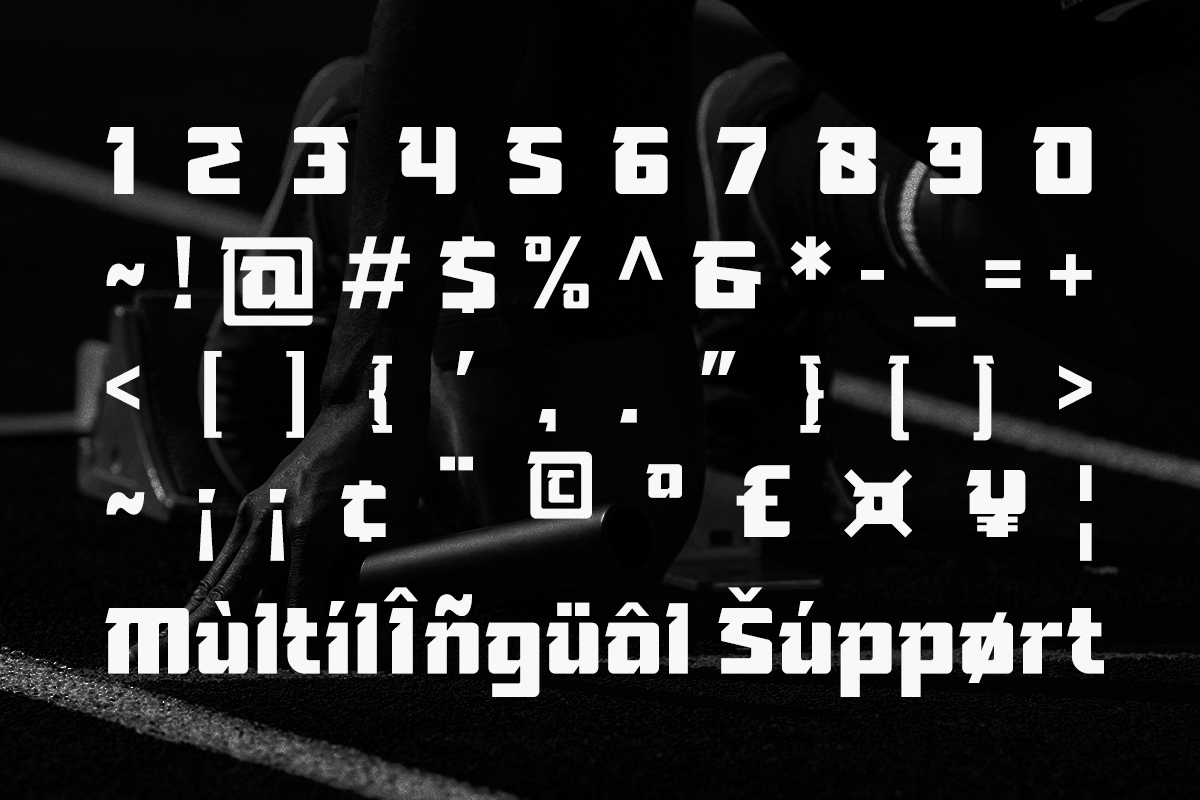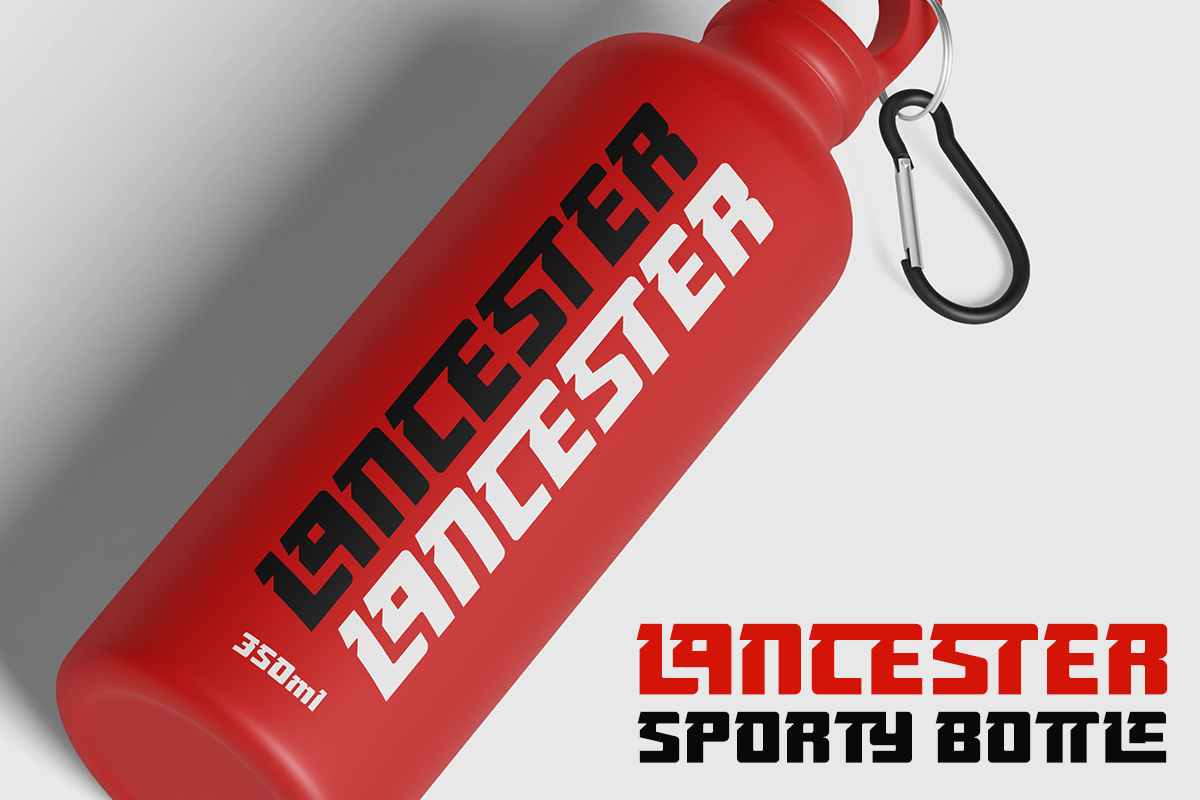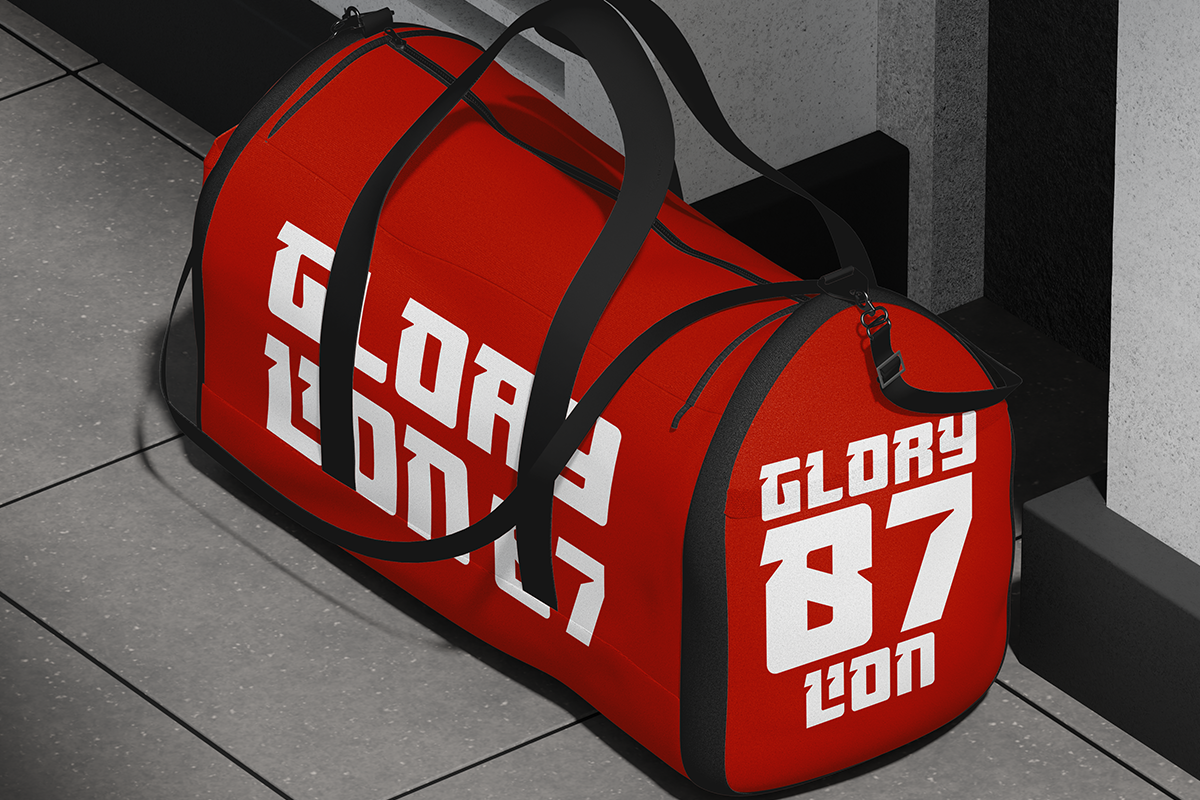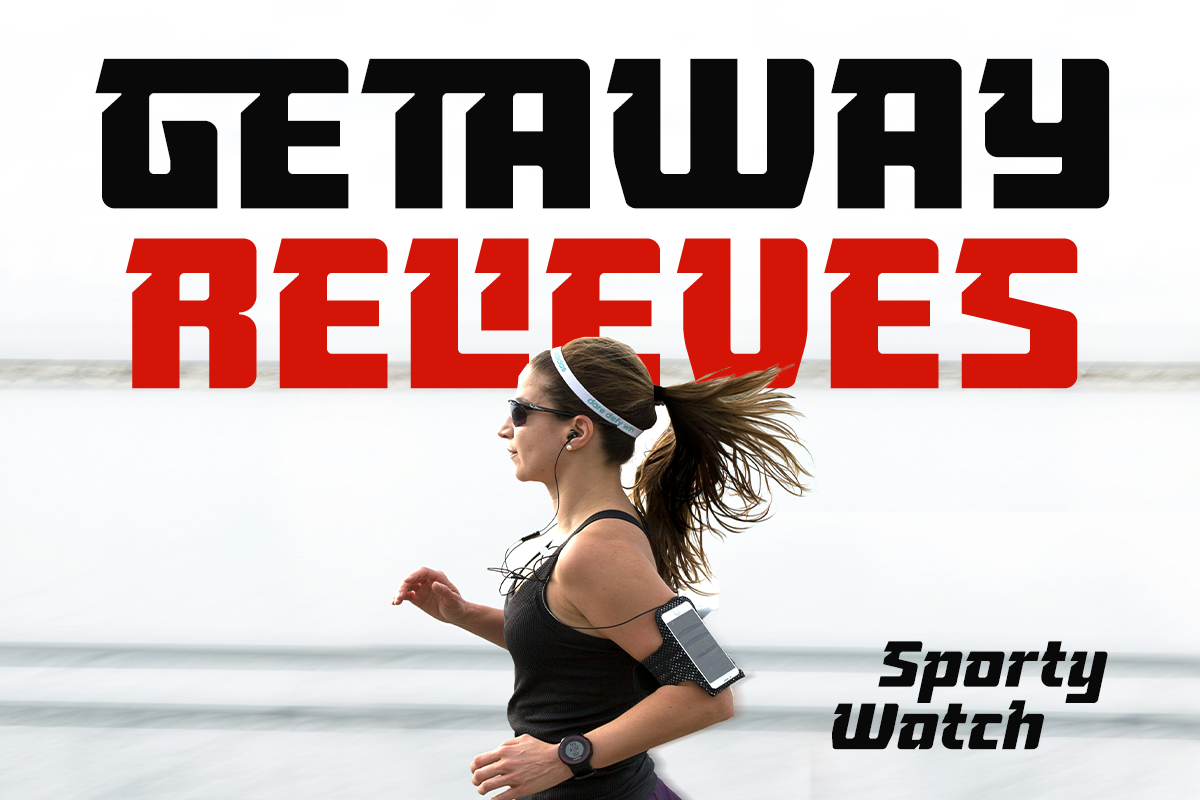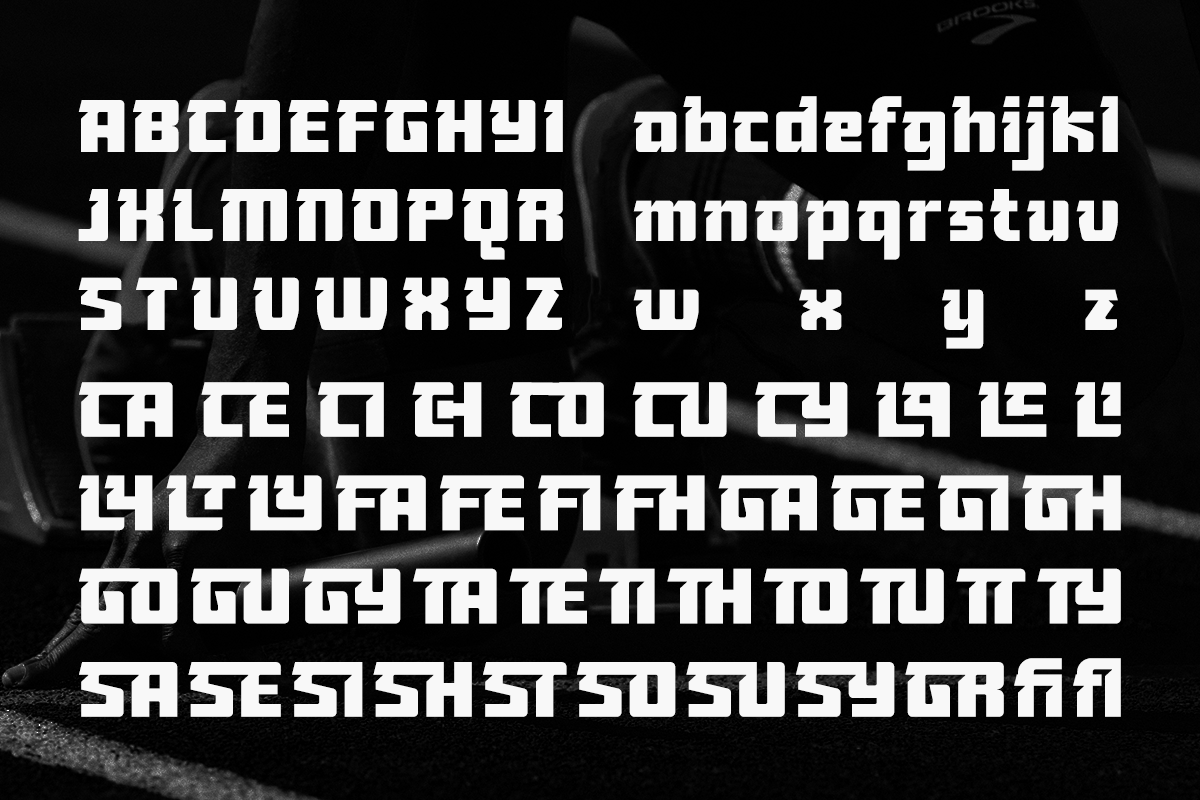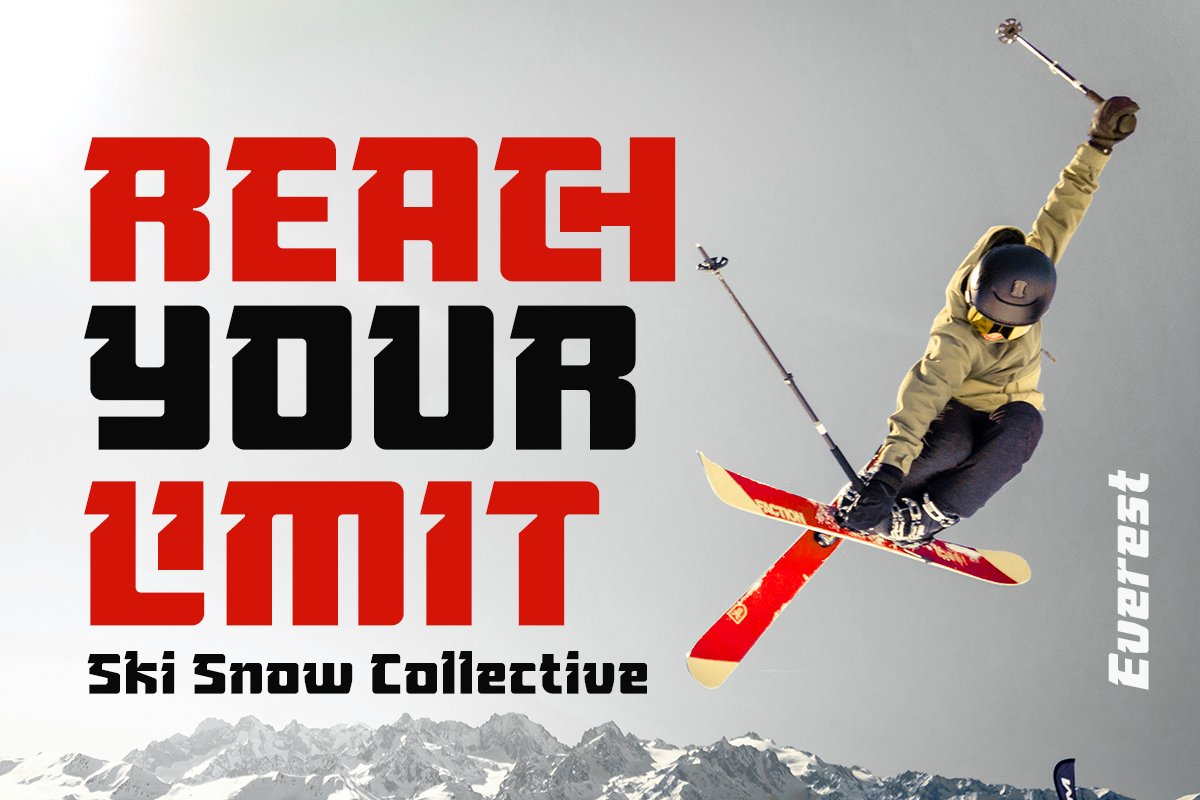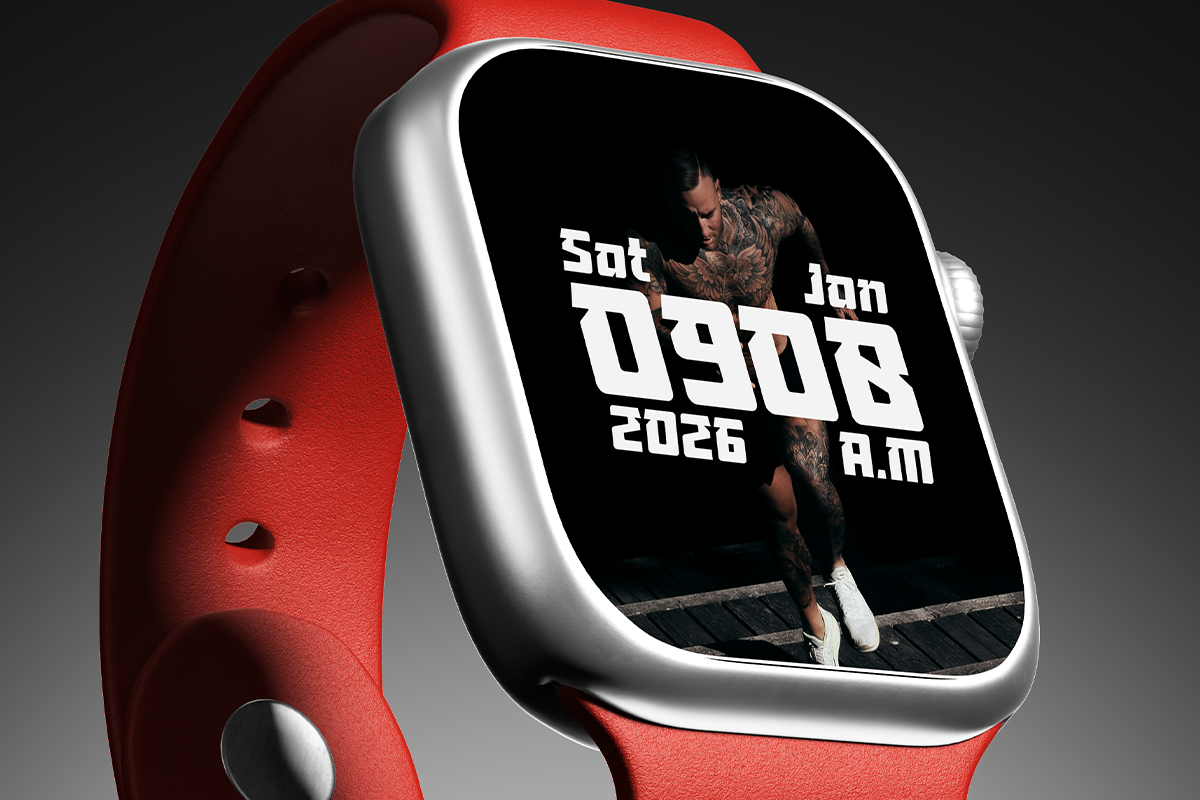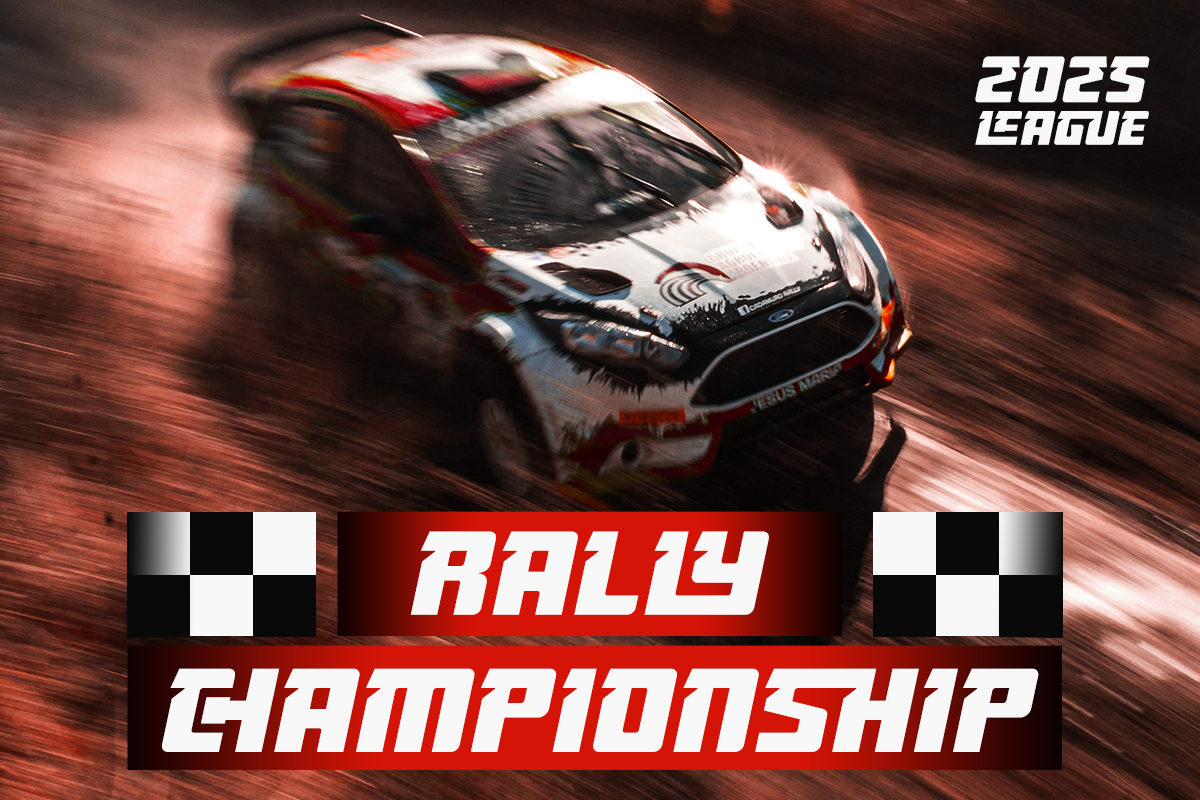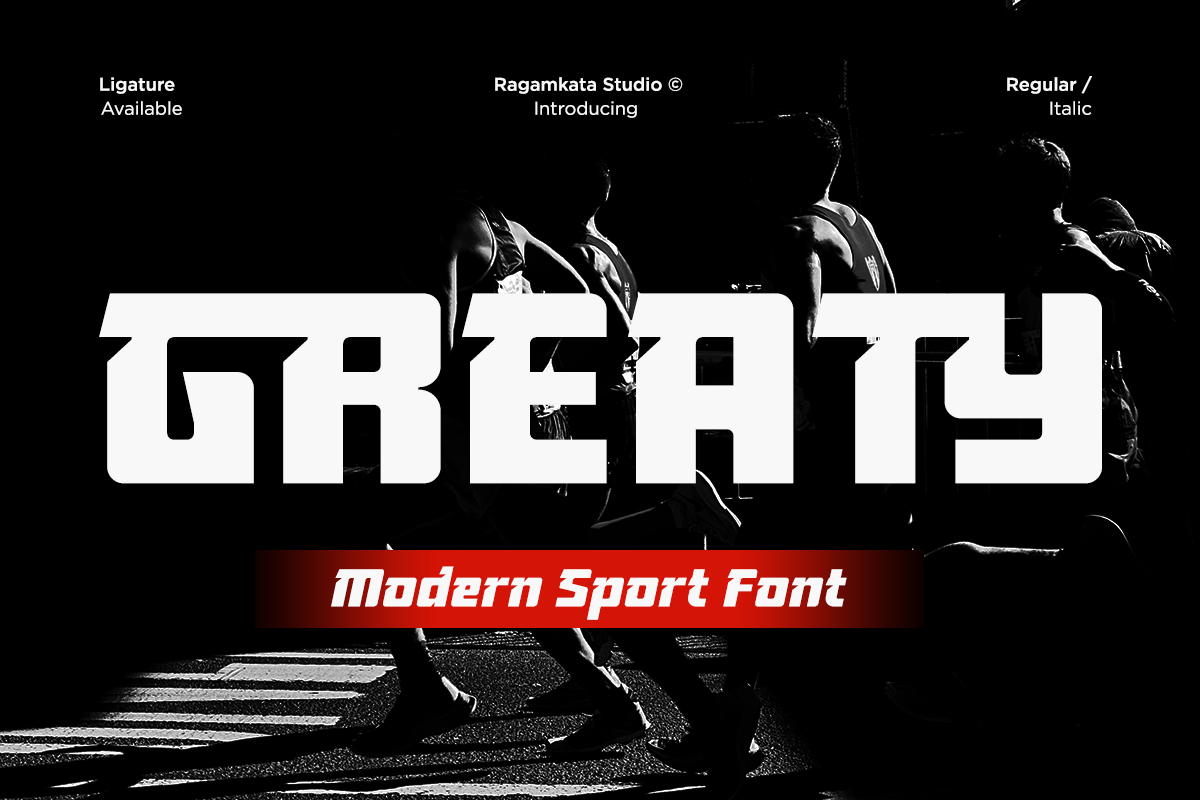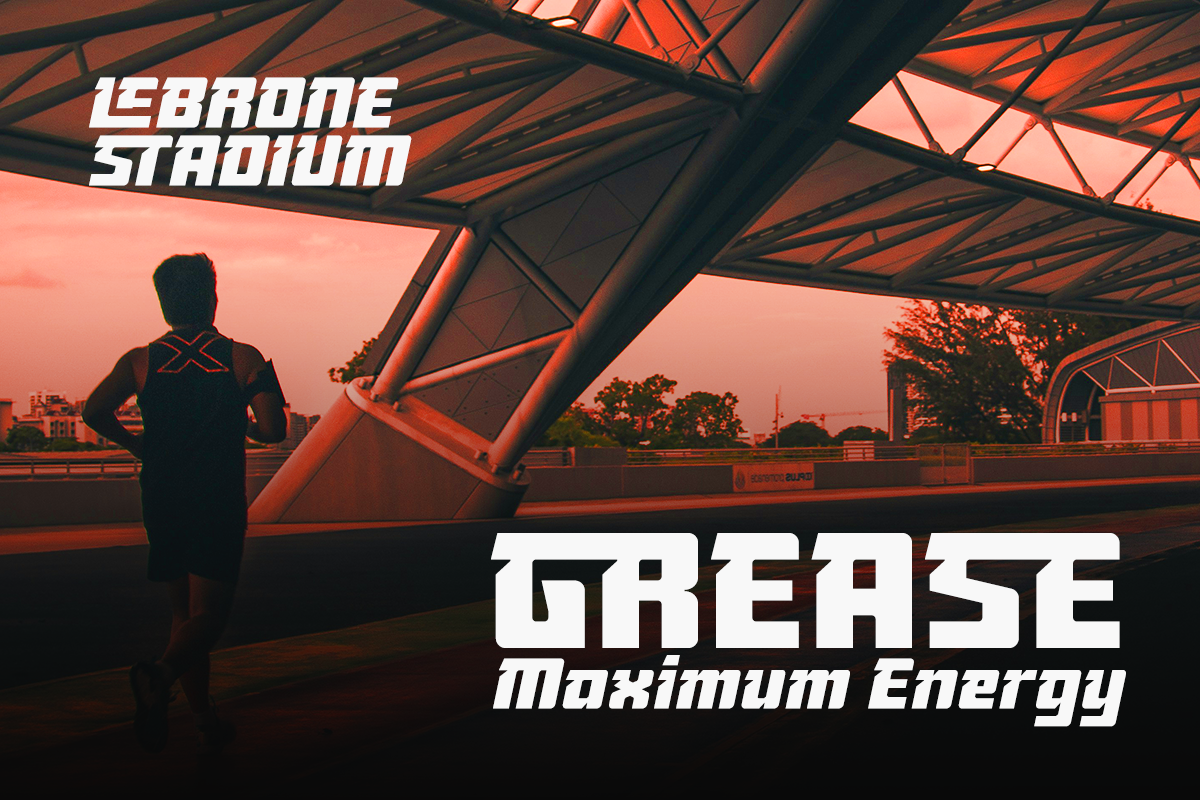
Greaty – Modern Sport Font
GREATY is a powerful modern sport font built to deliver strength, speed, and impact. Featuring bold letterforms, sharp angles, and strong proportions, GREATY is designed to stand out instantly and command attention. Its dynamic style makes it perfect for energetic designs that need a confident and aggressive look.
With clean construction and sporty character, GREATY works exceptionally well for headlines and display use. The font includes ligature support and comes in regular and italic styles, giving designers flexibility to create motion, contrast, and emphasis in their layouts. Perfect For sports branding, athletic logos, esports teams, posters, gym branding, fitness apparel, racing designs, gaming titles, headlines, social media graphics, advertisements, magazine covers, event promotions, dynamic web design